Fonts with lines on top and bottom are often referred to as serif fonts. These fonts have small strokes or extensions at the ends of their letters, which are the defining characteristics of a serif.
Popular examples of serif fonts include Times New Roman, Garamond, and Century Gothic. These fonts are widely used in both print and digital formats due to their classic and readable design.
In contrast, sans serif fonts lack these lines, giving them a cleaner and more modern appearance. While serif fonts are commonly associated with formal or traditional settings, sans serif fonts are often preferred for digital content due to their clarity on screens.
Serif Fonts And Their Characteristics
Serif fonts are used in various formats, from books to web design, thanks to their text readability and professional look. Some common types include TrueType fonts and Adobe fonts, both of which are known for their high-quality font rendering and compatibility across different platforms.
When designing with serif fonts, it’s essential to pay attention to line spacing (also known as leading), which determines the vertical space between lines of text. Good line spacing helps maintain readability, especially in body text.
Popular Fonts With Lines On Top And Bottom
Fonts with lines on top and bottom, or serif fonts, feature decorative strokes that enhance their readability and aesthetic appeal. Here are some popular fonts showcasing these characteristics, each described in detail.
1. Times New Roman
Times New Roman is a classic serif font renowned for its traditional elegance and legibility. The capital “T” features a prominent top serif, while the lowercase “n” showcases serifs at both ends. This font is widely used in print and digital media, making it a go-to choice for formal documents, academic papers, and newspapers.
2. Georgia
Georgia was specifically designed for clarity on screens, making it an excellent choice for digital content. The capital “G” has a distinct upper serif that enhances readability, and the lowercase “e” features well-defined serifs that guide the reader’s eye. Its thick, bold serifs create a friendly and approachable feel, ideal for websites and online articles.
3. Baskerville
Baskerville is known for its sophisticated style and strong contrast between thick and thin strokes. The capital “B” showcases bold, elegant serifs that add character, while the lowercase “a” features a delicate top serif. Often used in formal publications and literary works, Baskerville exudes timeless elegance, making it perfect for printed books and classic branding.
4. Garamond
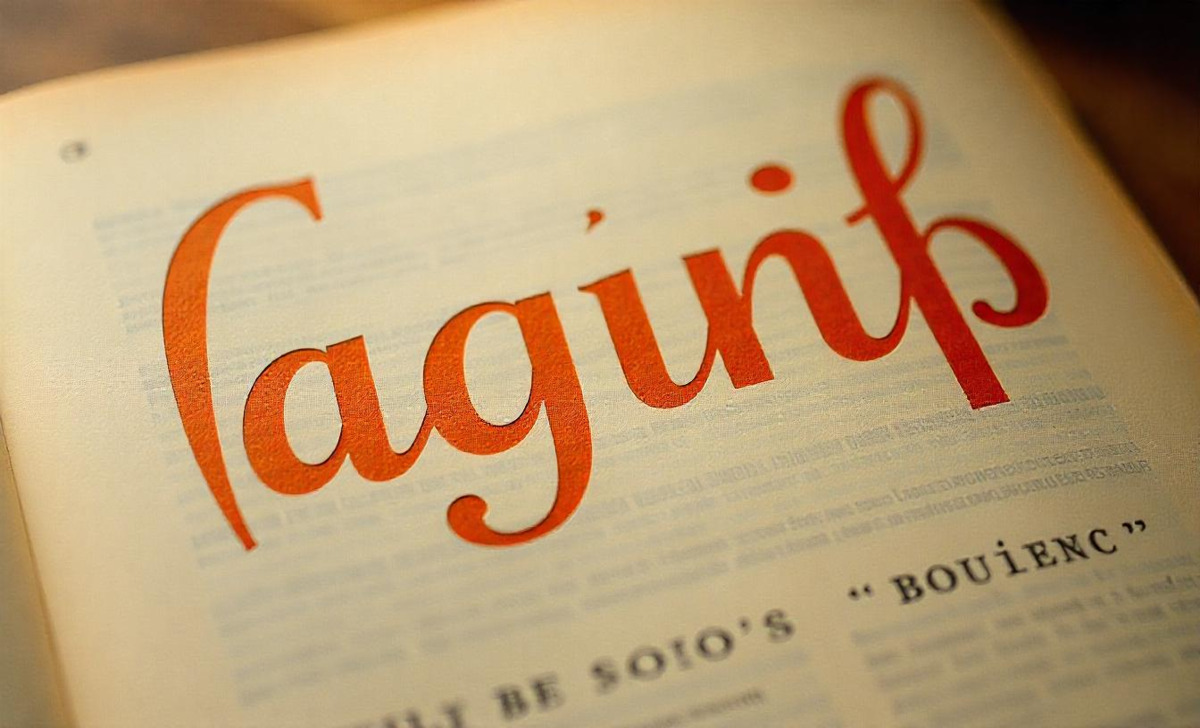
Garamond is a beloved serif typeface with a rich history, prized for its readability and beauty. The capital “G” features a stylish serif at the top and a graceful curve, while the lowercase “r” has a subtle, elegant serif. This font is frequently used in book publishing, giving texts a classic and sophisticated appearance that draws readers in.
5. Playfair Display
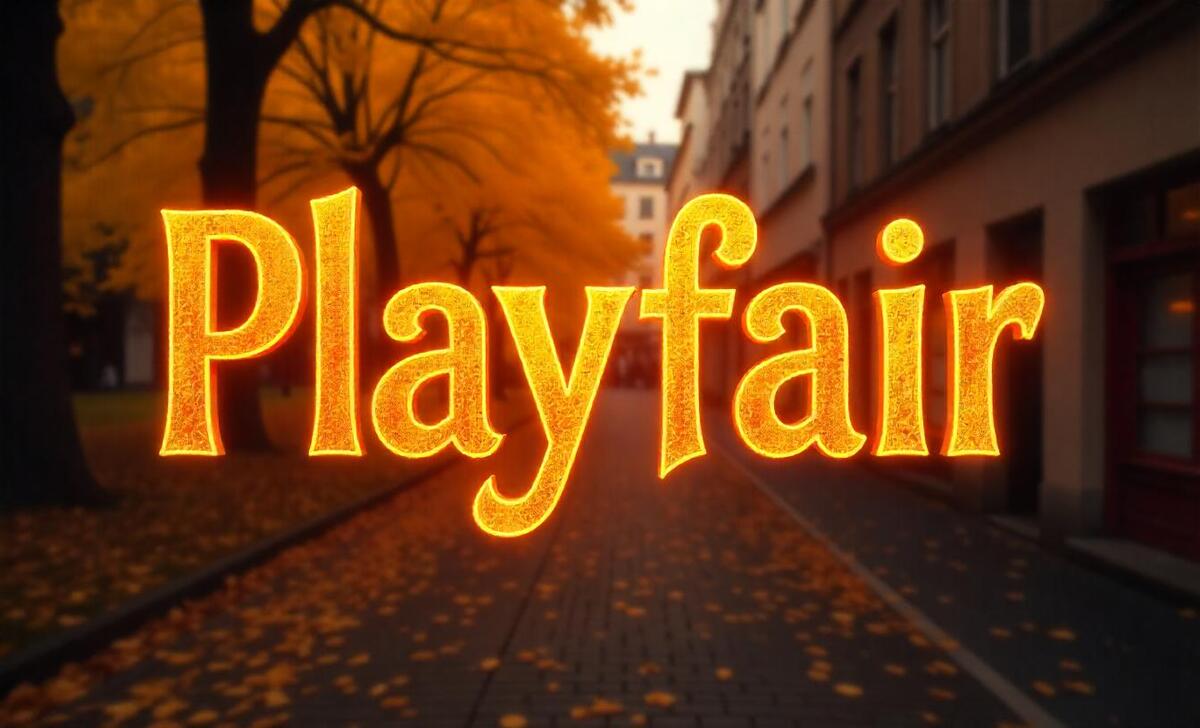
Playfair Display is a modern serif font that blends traditional elements with contemporary design. The capital “P” features a dramatic top serif, creating a striking visual impact, while the lowercase “f” has an elongated serif that adds flair. This font is ideal for headings and branding, providing an elegant touch that stands out in both print and digital formats.
6. Fredericka The Great
Fredericka the Great is a whimsical serif font that combines classic elements with a playful twist. The capital “F” has an exaggerated top serif, while the lowercase “t” features a quirky design with pronounced serifs. Perfect for creative projects, this font adds personality and charm to invitations, posters, and branding materials.
7. Zing Rust
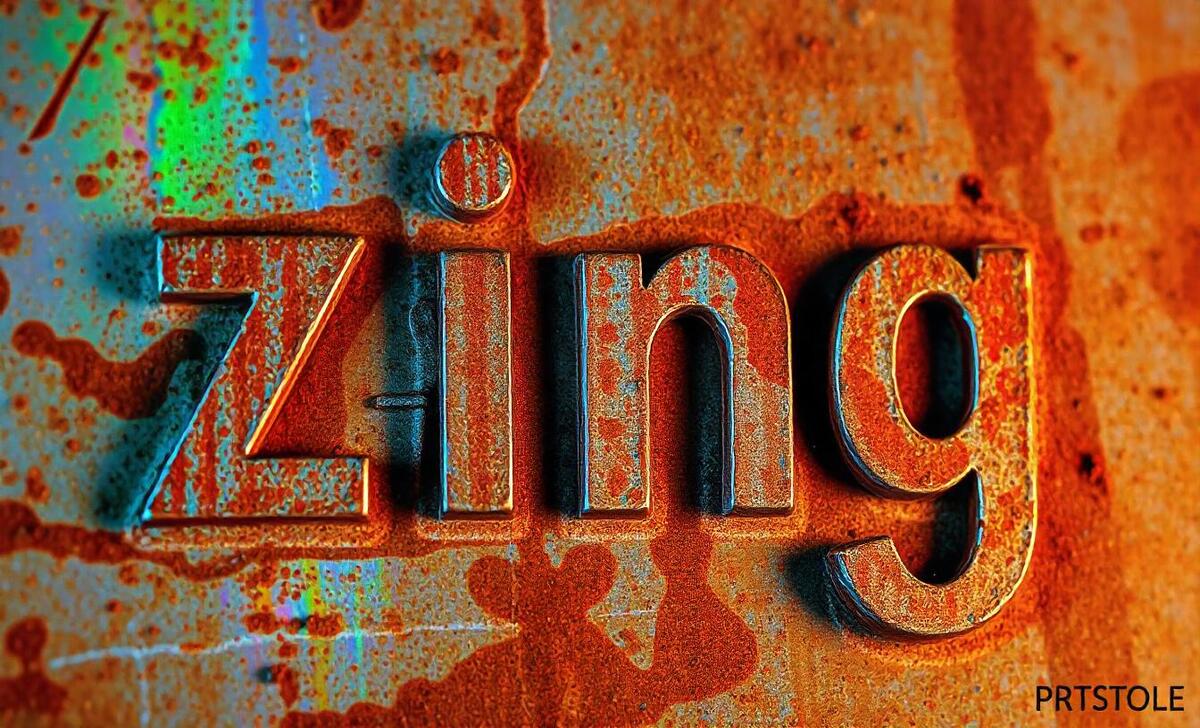
Zing Rust is known for its distinctive distressed look, making it a popular choice for vintage and playful designs. The capital “Z” showcases jagged serifs that give it a rustic feel, while the lowercase “g” features a unique descender with a decorative serif. This font is perfect for projects that aim to evoke a nostalgic or retro aesthetic.
8. Mexcellent
Mexcellent is a fun and creative font that incorporates stripes and playful elements. The capital “M” features bold top serifs that enhance its structure, while the lowercase “x” has subtle serifs at the ends. This font is ideal for informal designs, making it suitable for invitations, posters, and branding aimed at a youthful audience.
Google Fonts And Serif Fonts
If you’re looking for free and accessible fonts, Google Fonts offers a variety of serif typefaces. From Times New Roman alternatives to modern serif designs, you can choose the right font family that suits your design project.
Font Metrics And Vertical Alignment
Font metrics refer to the measurements used to describe font properties like line height, letter spacing, and the positioning of glyphs (the individual shapes of characters). These measurements ensure proper alignment and consistent text flow.